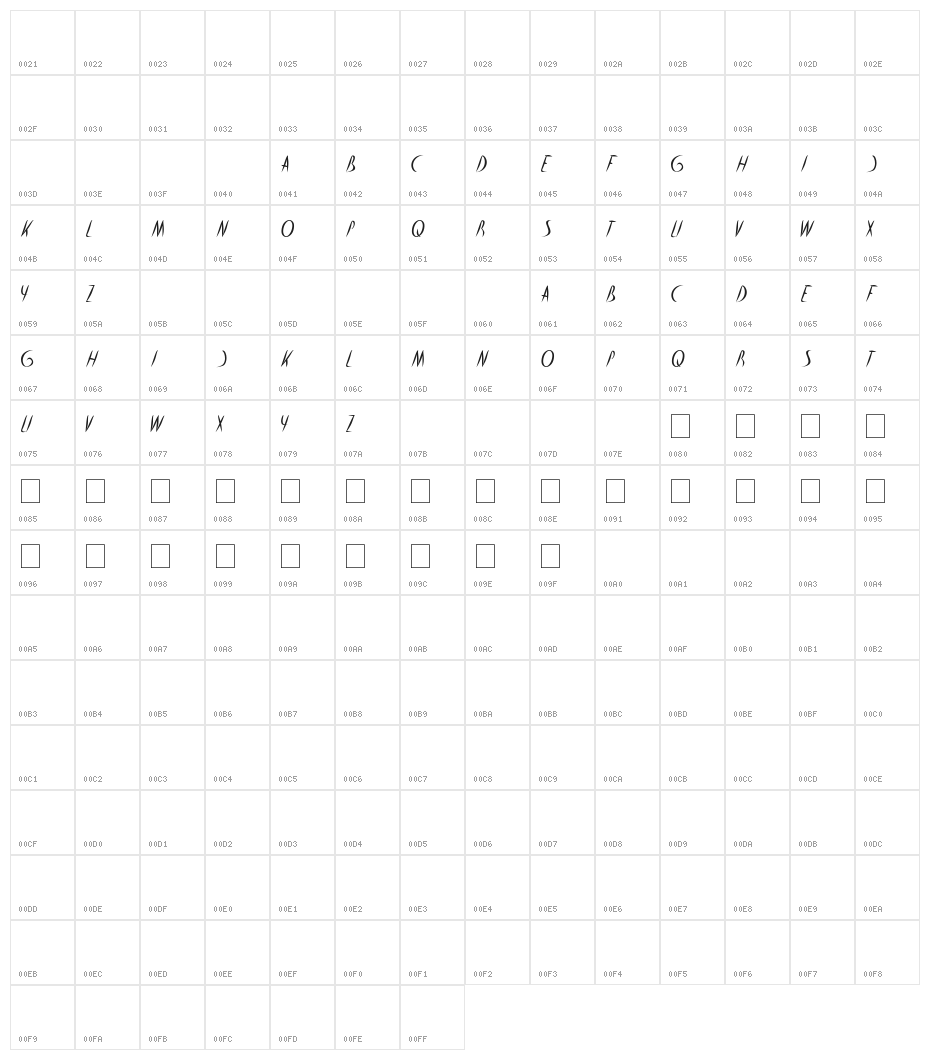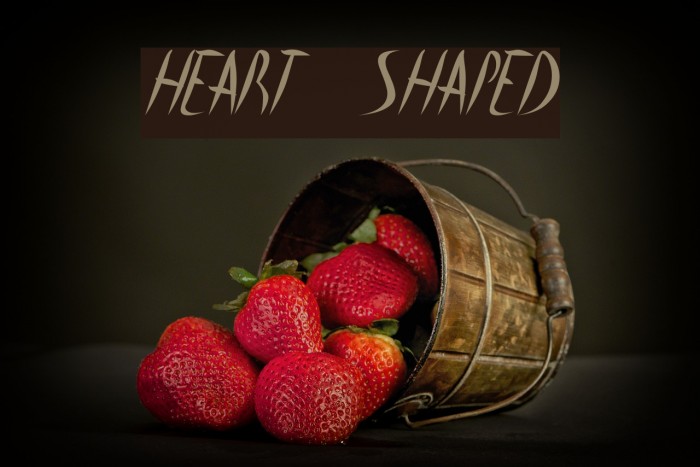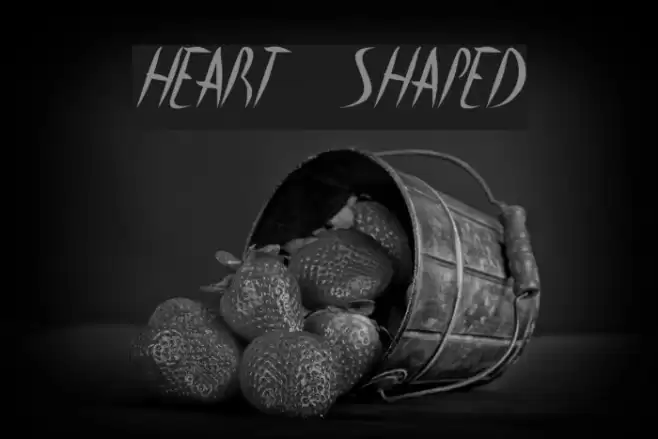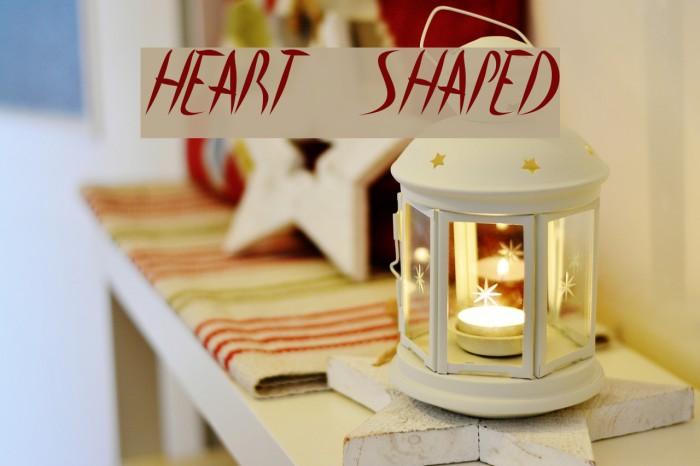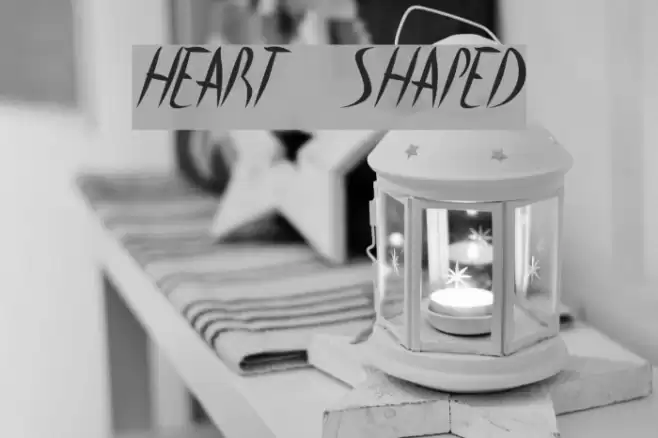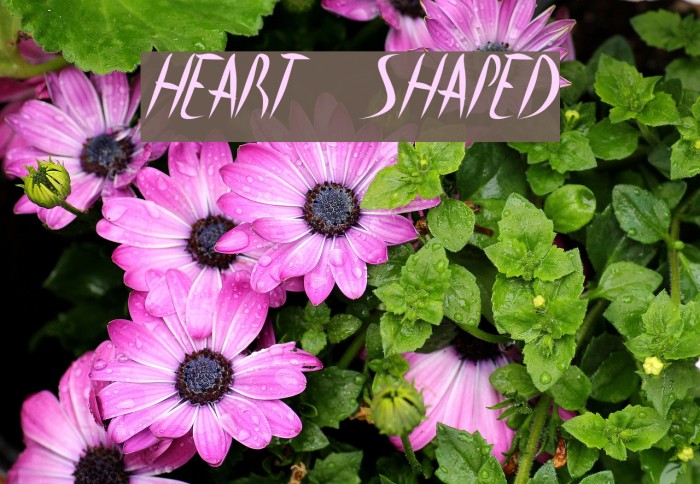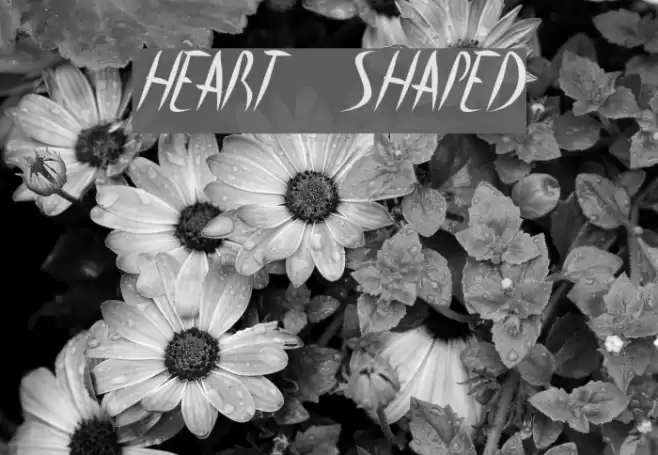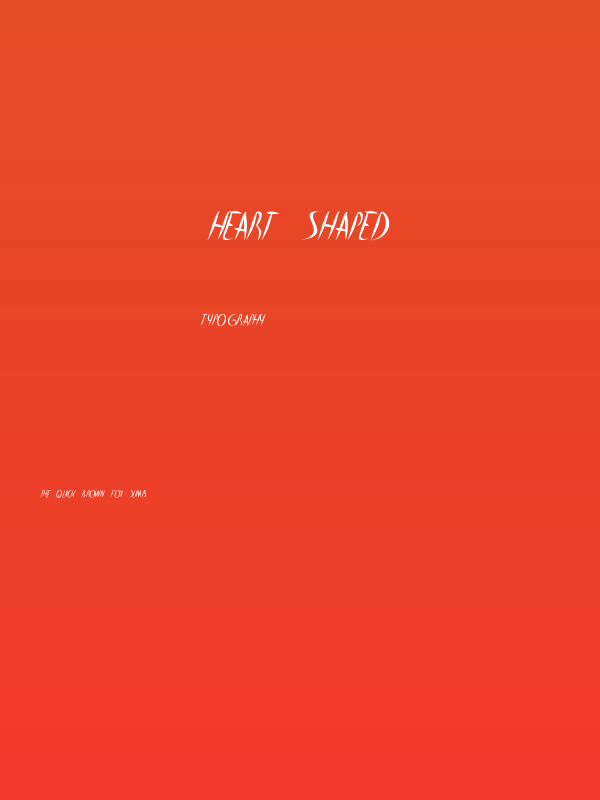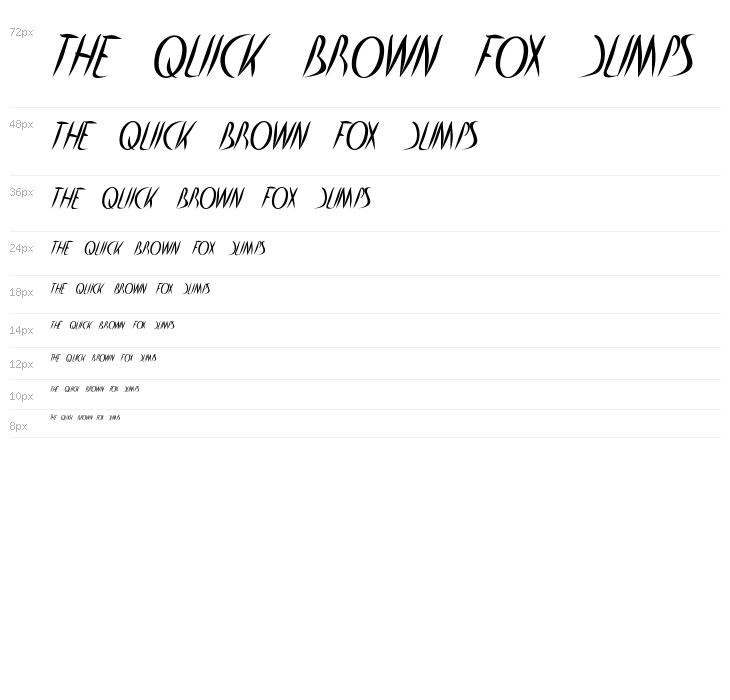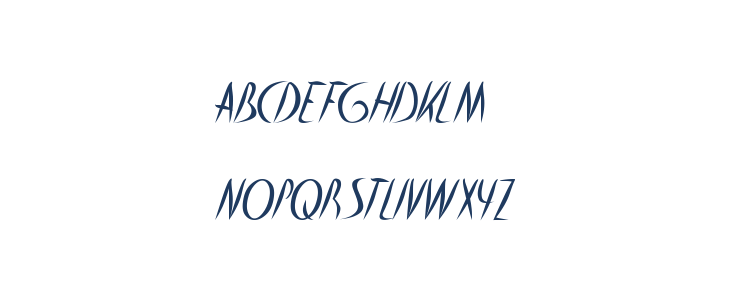
heart shaped Font
heart shaped Description
This font features a dynamic and flowing style, characterized by its sharp, angular strokes and elegant curves. The letters exhibit a sense of movement, with each character appearing to lean forward slightly, adding a sense of urgency and energy. The strokes are bold and confident, with a high contrast between thick and thin lines, giving the font a dramatic flair. The overall design is reminiscent of calligraphy, yet it maintains a modern edge with its sleek and polished appearance. This font is both artistic and functional, making it suitable for a variety of creative applications.